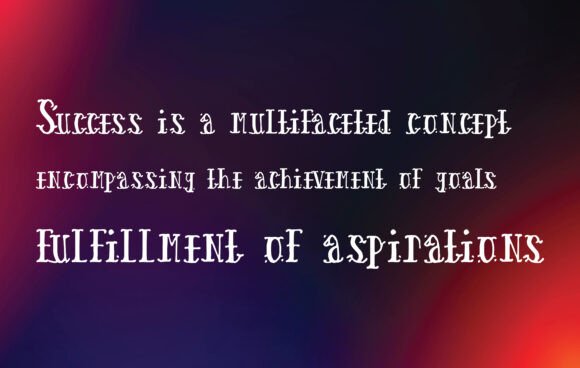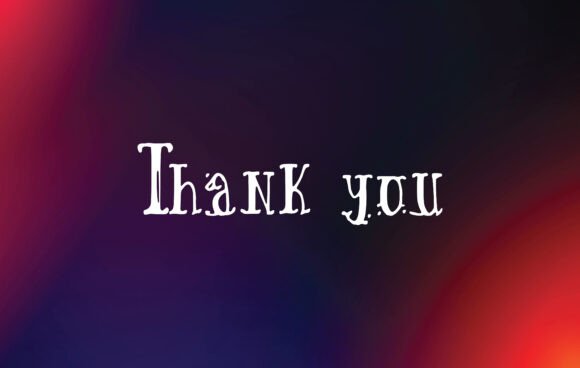
The Quest for the Perfect Font: Discovering Emma
I still remember the frustration of working on a design project, hours spent crafting the perfect layout, only to hit a roadblock when it came to choosing a font. My client wanted something that was both elegant and playful, but I just couldn’t seem to find the right fit. That was until I stumbled upon Emma, a lovely and beautiful handwritten font that has since become a staple in my design toolkit.
What Makes Emma So Special?
Emma is more than just a font – it’s a design solution that can elevate your creative ideas to new heights. With its unique blend of elegance and playfulness, Emma is the perfect choice for creating eye-catching logos, branding, and quotes that leave a lasting impression.
An Honest Review of Emma
- ✨ Unique and elegant handwritten style that’s perfect for a wide range of design projects
- ✅ Extensive character set, including OpenType features and glyphs
- ✅ Perfect for creating logos, branding, and quotes that need a personal touch
The Not-So-Good Stuff
While Emma is an exceptional font, there are a few quirks to be aware of:
- ⚠️ Some users may find the font a bit too ornate for very small font sizes or body text
- 🤔 Limited availability of certain characters or glyphs in certain platforms or software
The Story Behind Emma
Emma was designed by a talented type designer who wanted to create a font that was both elegant and playful. Inspired by traditional handwriting, Emma features a unique blend of flourishes and simplicity that make it perfect for a wide range of design projects.
Q: What type of projects is Emma best suited for?
A: Emma is perfect for creating eye-catching logos, branding, and quotes that require a personal touch. She’s also great for design projects that need a touch of elegance and sophistication.
Q: Is Emma available in different font styles?
A: Yes, Emma comes in a range of font styles, including regular, italic, and bold. This makes it easy to add depth and interest to your design projects.